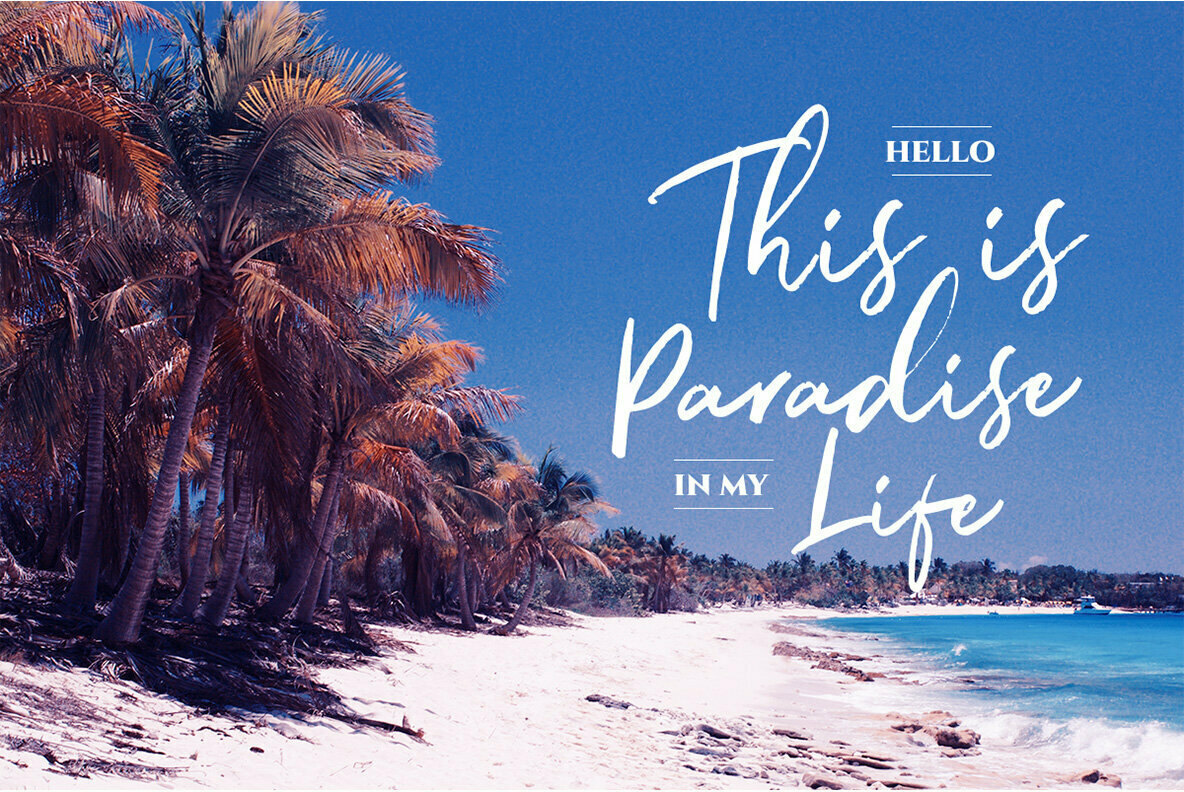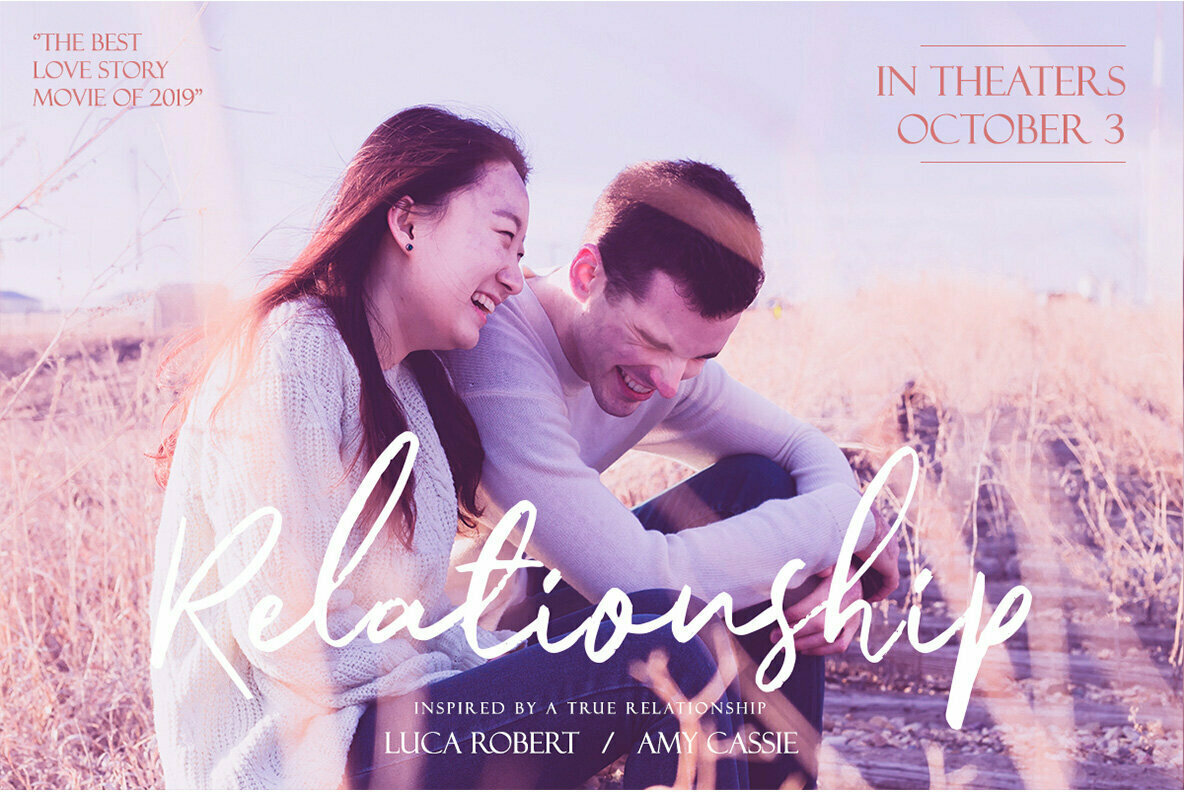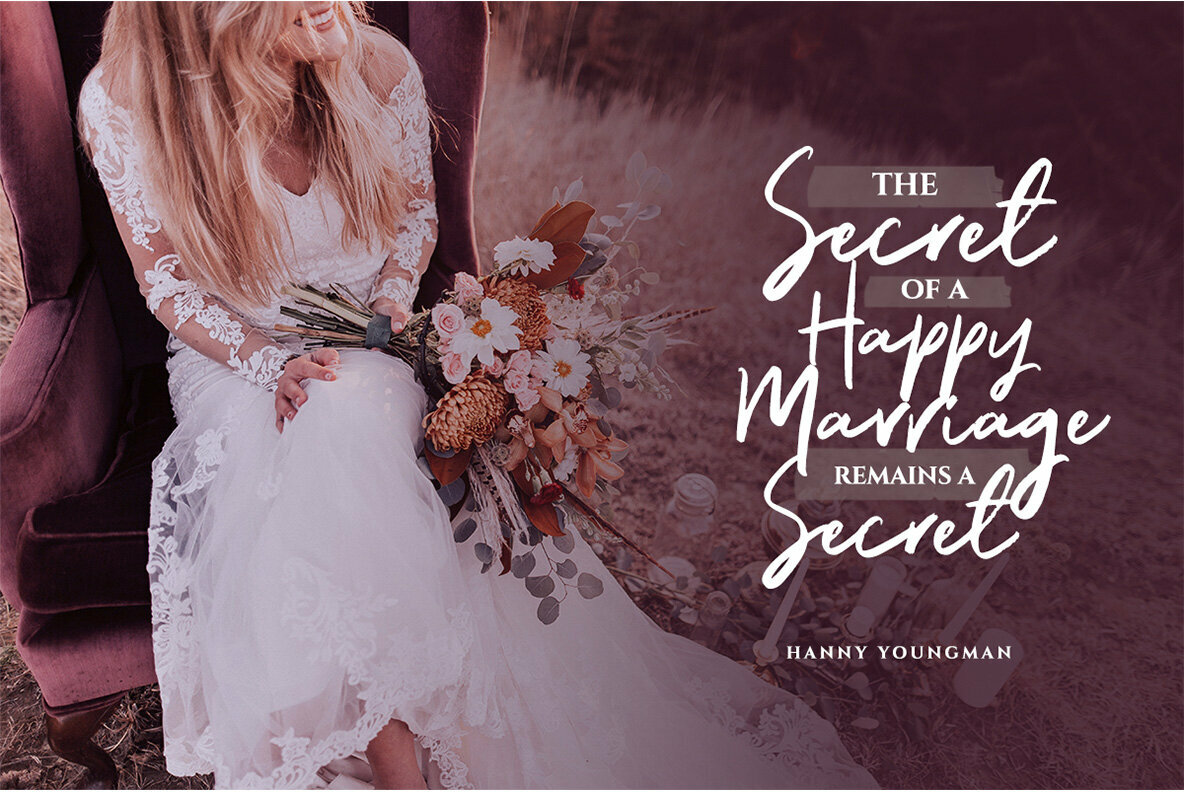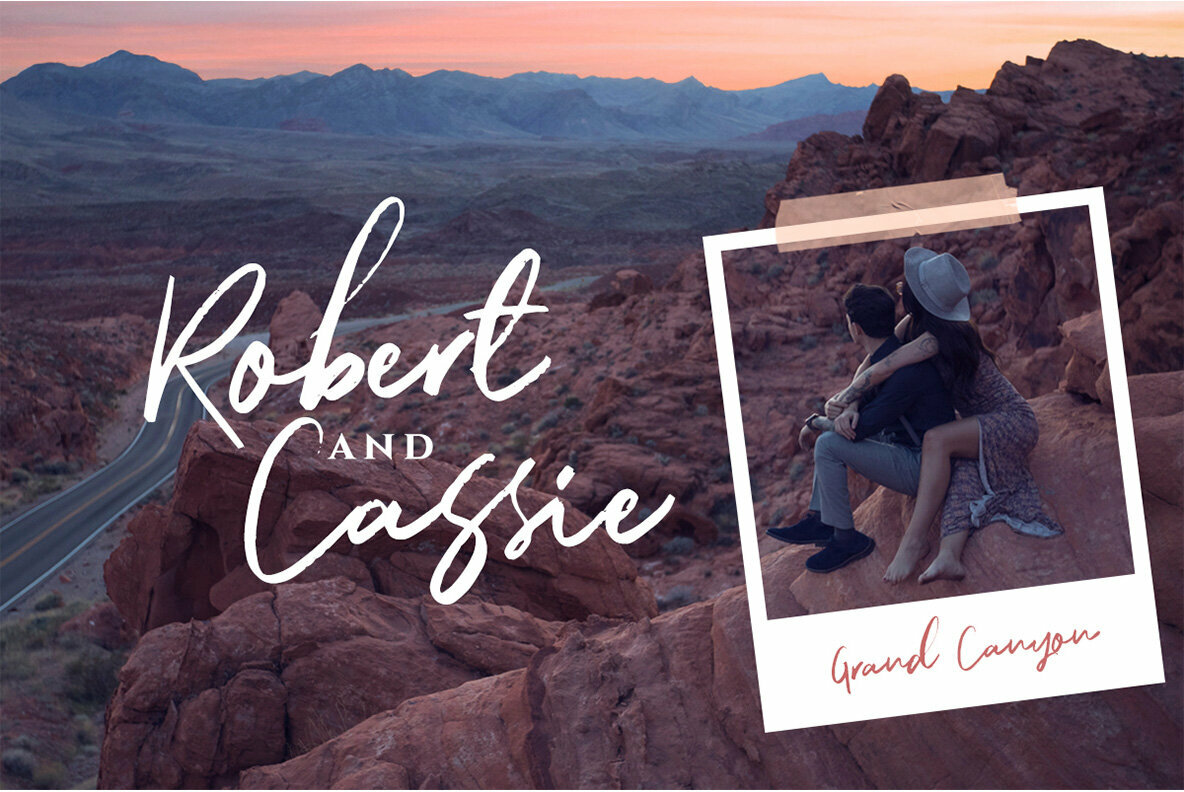
Callonsky Font
Callonsky
Experience the elegance and playful charm of the Callonsky font. Designed as a romantic modern script, Callonsky stands out with its whimsical yet sophisticated style, making it ideal for diverse applications ranging from headlines and logotypes to apparel and invitations. Features: Its natural handwriting aesthetic ensures that Callonsky is a versatile choice for branding, packaging, and advertising projects, making it a favorite among designers seeking both elegance and a touch of fun. Fully PUA encoded to ease design work, it brings a unique personality to your visual projects.Callonsky: A Romantic Script with Modern Flair